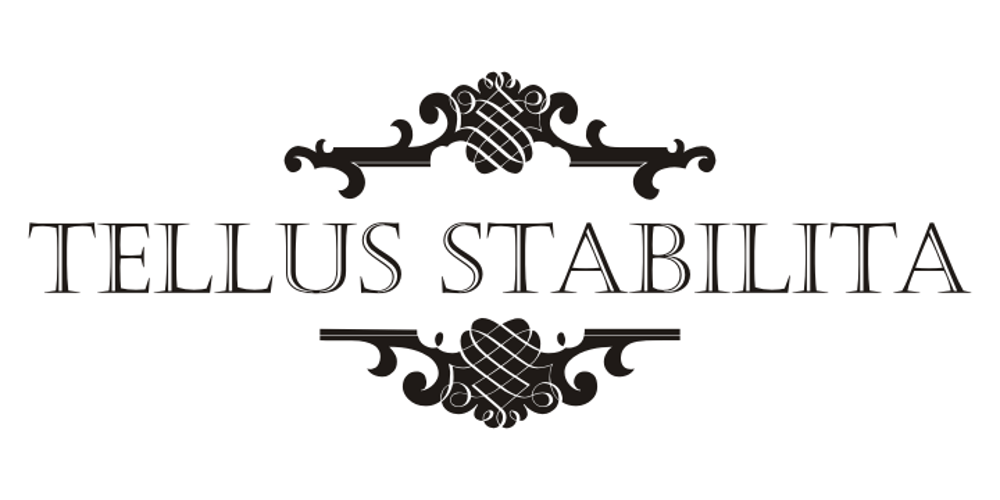
Black Ornaments Three
Black Ornaments Three font
Black Ornaments Three Font Family was designed by Paulo W and published by Intellecta Design. Black Ornaments Three contains 1 styles and family package options. Black Ornaments is a family of ornament/dingbat fonts, inspired by the CalligraphiaLatina font series. Is excellent for use in editorial works of art and publishing, as the cover of books, headpieces, packaging, magazines and many other solutions.